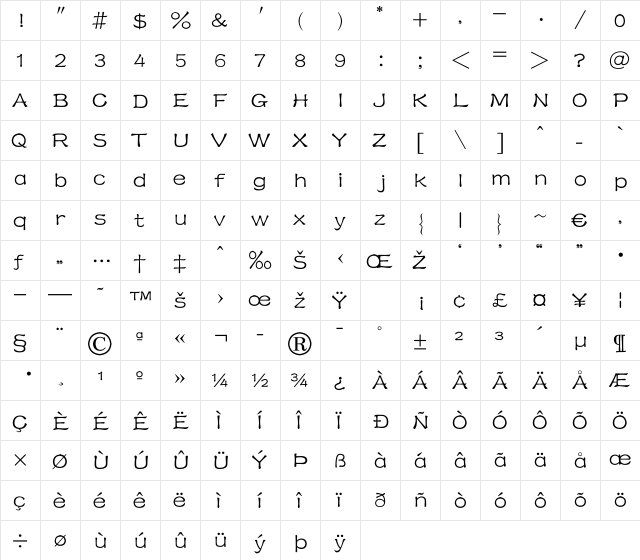
FZShuTi Regular
Design Context for FZShuTi Typeface
FZShuTi takes a measured approach to typography — its balanced proportions and neutral character make it a reliable workhorse for both digital and print work.
Pro Tip: Pair FZShuTi with a font of contrasting weight or personality to build a more expressive typographic hierarchy.